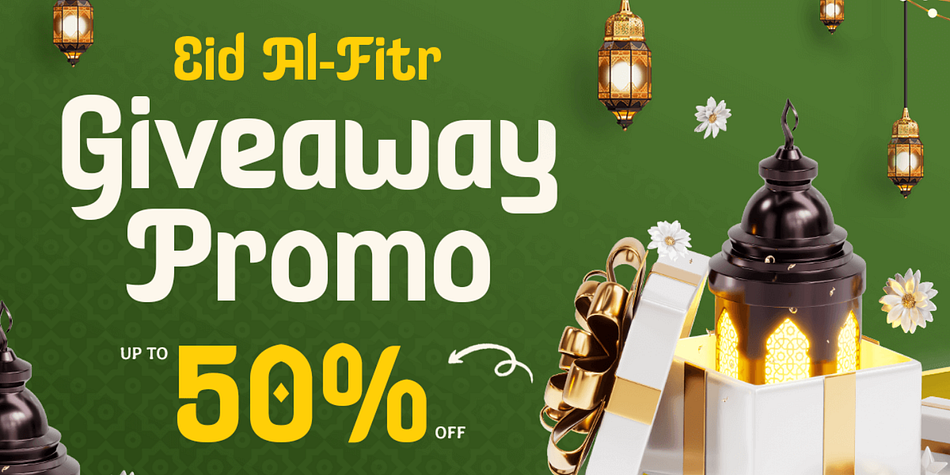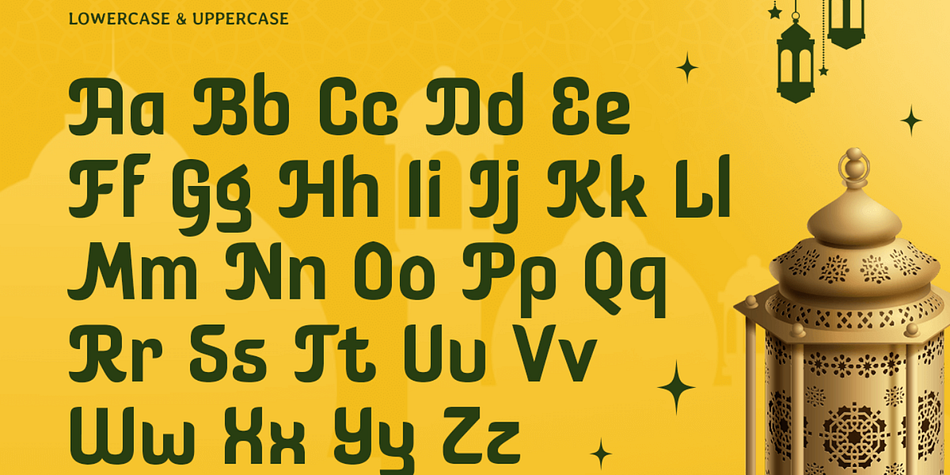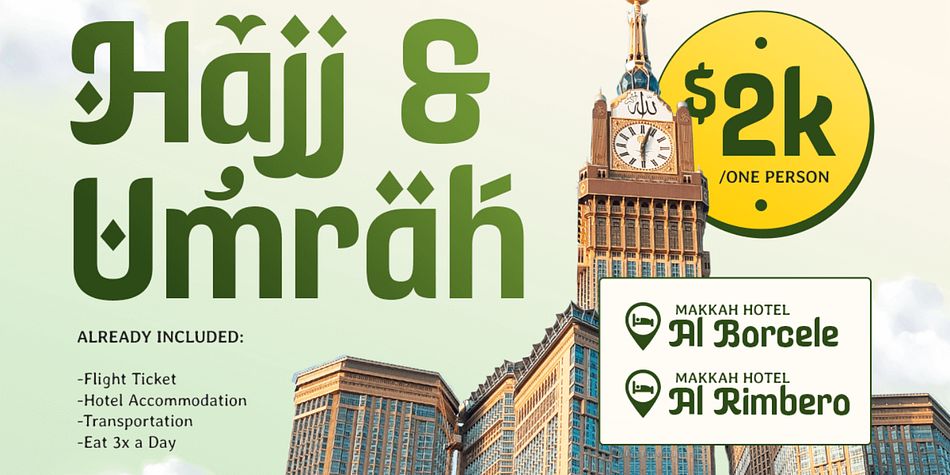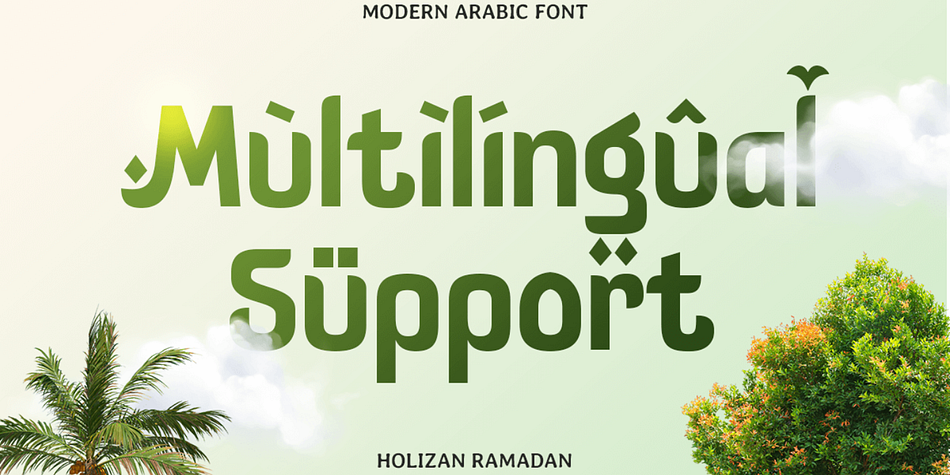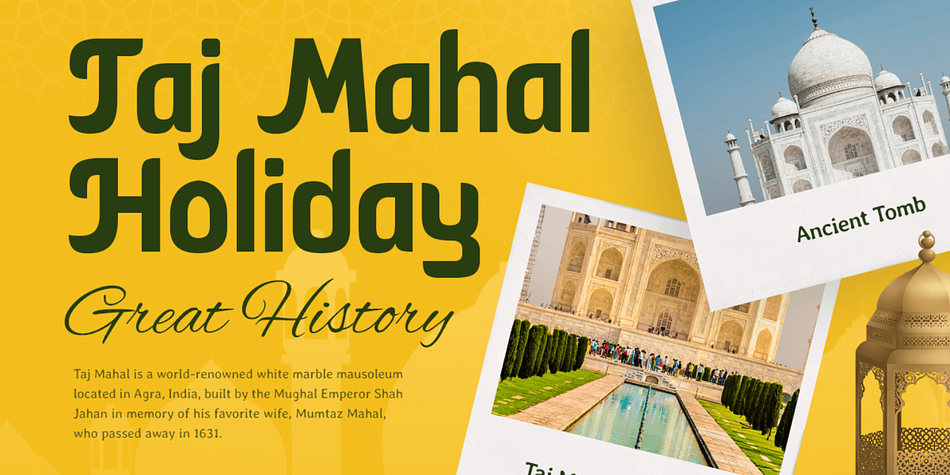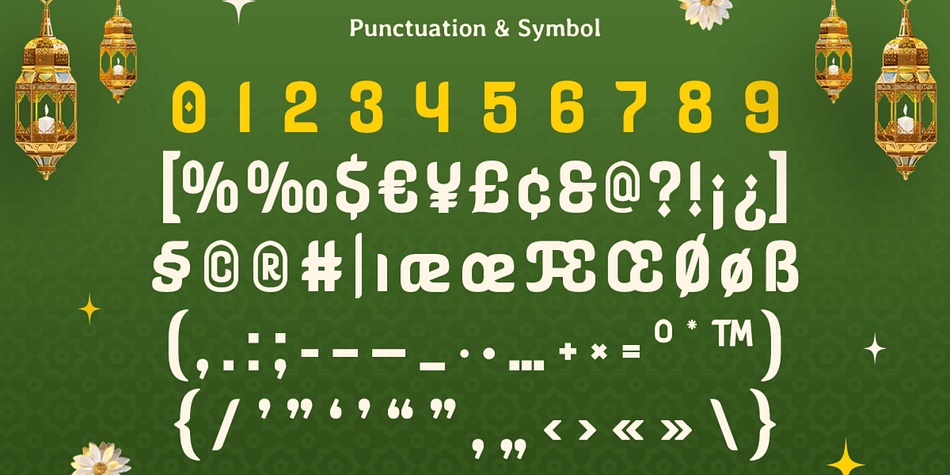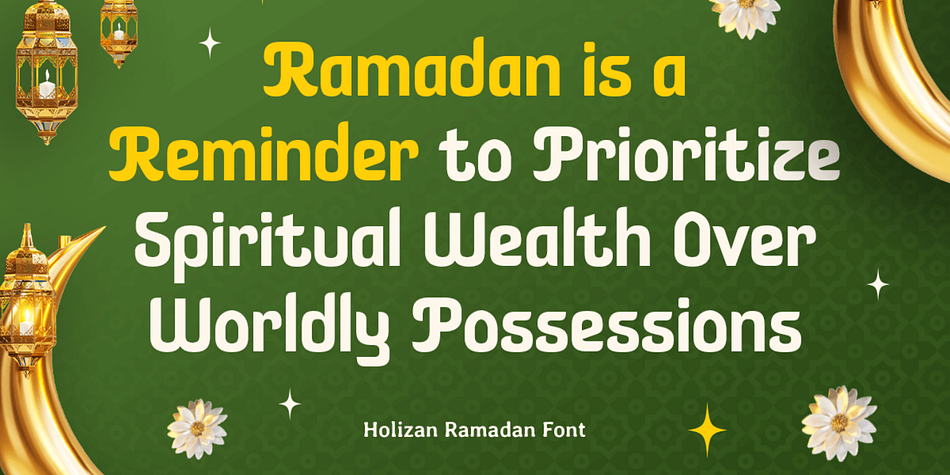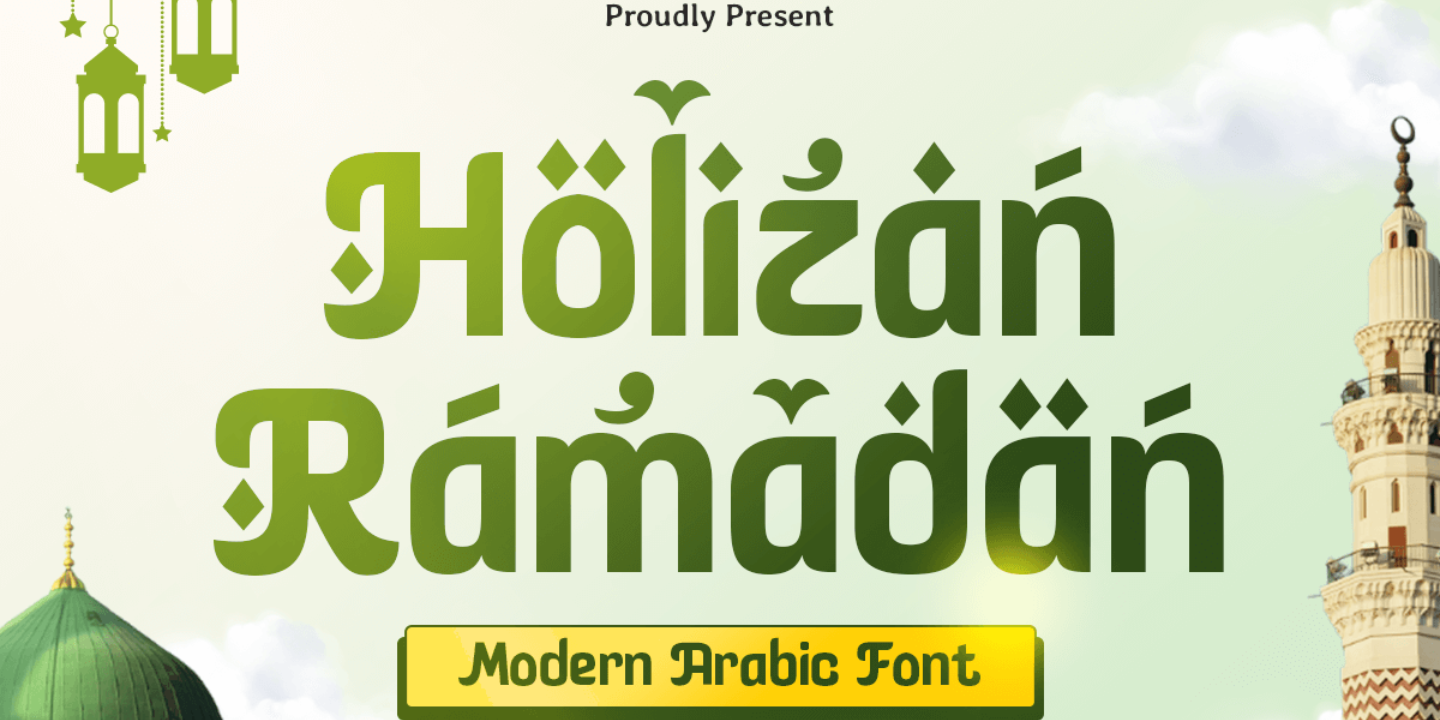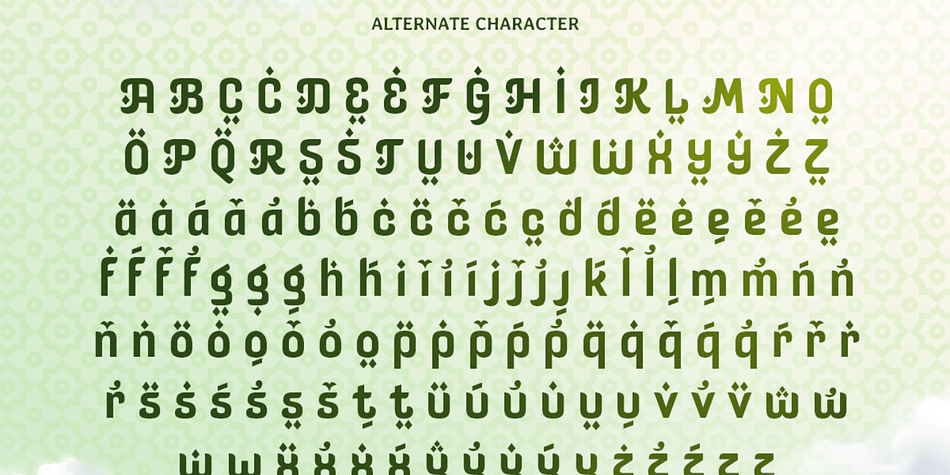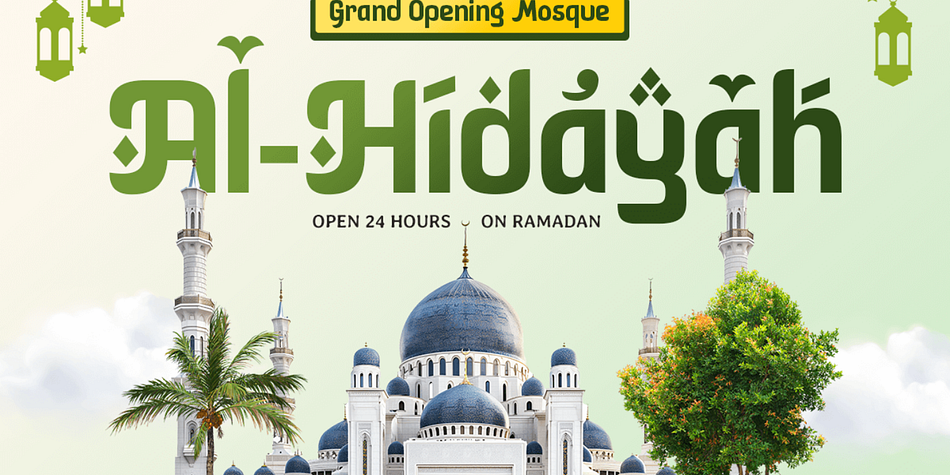
A Font Inspired by Ramadan’s Spirit
Holizan Ramadan captures the beauty and warmth of Ramadan through its elegant Arabic script. Perfectly blending tradition with modern design, it evokes the festive atmosphere and spiritual essence of this special time of year.
Ideal for Festive and Cultural Designs
Holizan Ramadan is the go-to font for creating greeting cards, invitations, event posters, and branding materials that celebrate Islamic culture. Its graceful curves and artistic details make it ideal for both traditional and modern projects.
Bringing Tradition to Modern Art
Designed to inspire creativity, Holizan Ramadan is not just a font but a bridge between heritage and innovation. Use it to elevate your designs and create meaningful connections with your audience.
Holizan Ramadan Arabic Font Features:
Alternates Characters Ready
Punctuation, Number, and Symbol
Uppercase and Lowercase
Opentype Features
Multilingual Characters available for:
Afrikaans, Albanian, Asu, Basque, Bemba, Bena, Breton, Chiga, Cornish, Dutch, English, Estonian, Filipino, Finnish, Friulian, Galician, German, Gusii, Indonesian, Irish, Italian, Kabuverdianu, Kalenjin, Kinyarwanda, Luo, Luxembourgish, Luyia, Machame, Makhuwa-Meetto, Makonde, Malagasy, Manx, Morisyen, North Ndebele, Nyankole, Oromo, Portuguese, Quechua, Romansh, Rombo, Rundi, Rwa, Samburu, Sango, Sangu, Scottish Gaelic, Sena, Shambala, Shona, Soga, Somali, Spanish, Swahili, Swedish, Swiss.